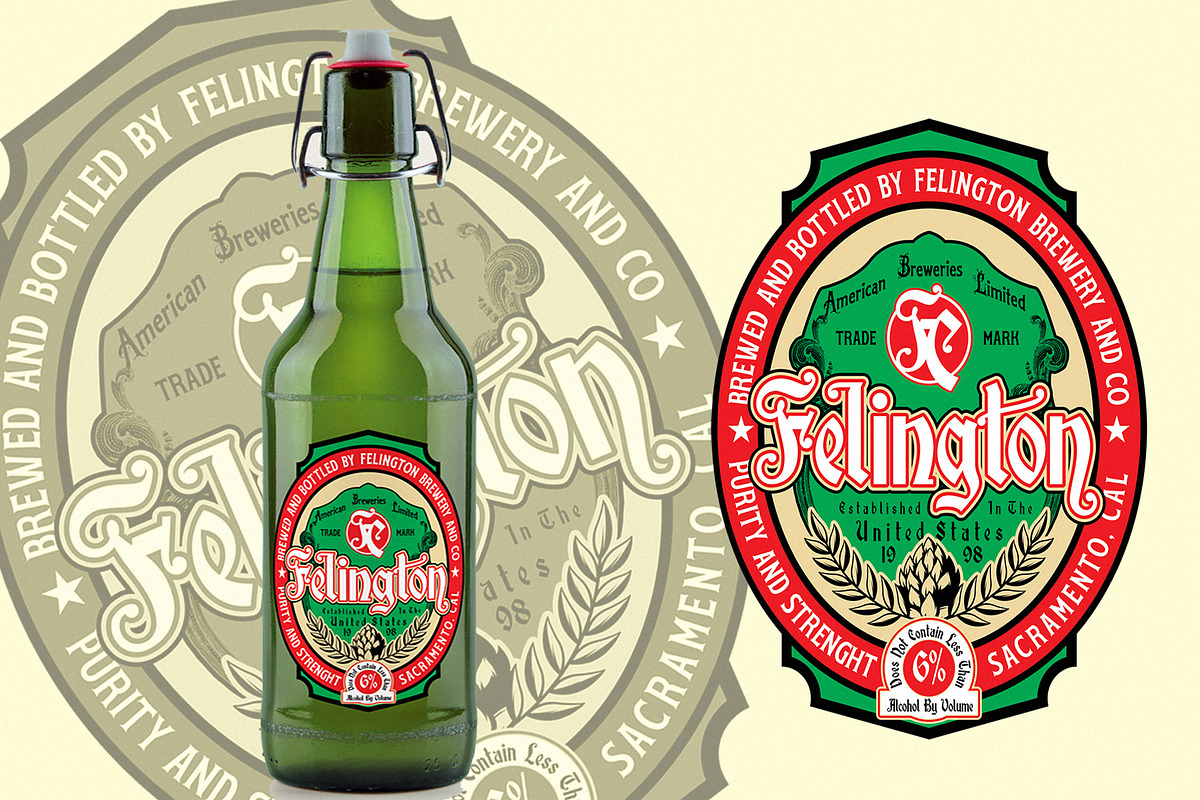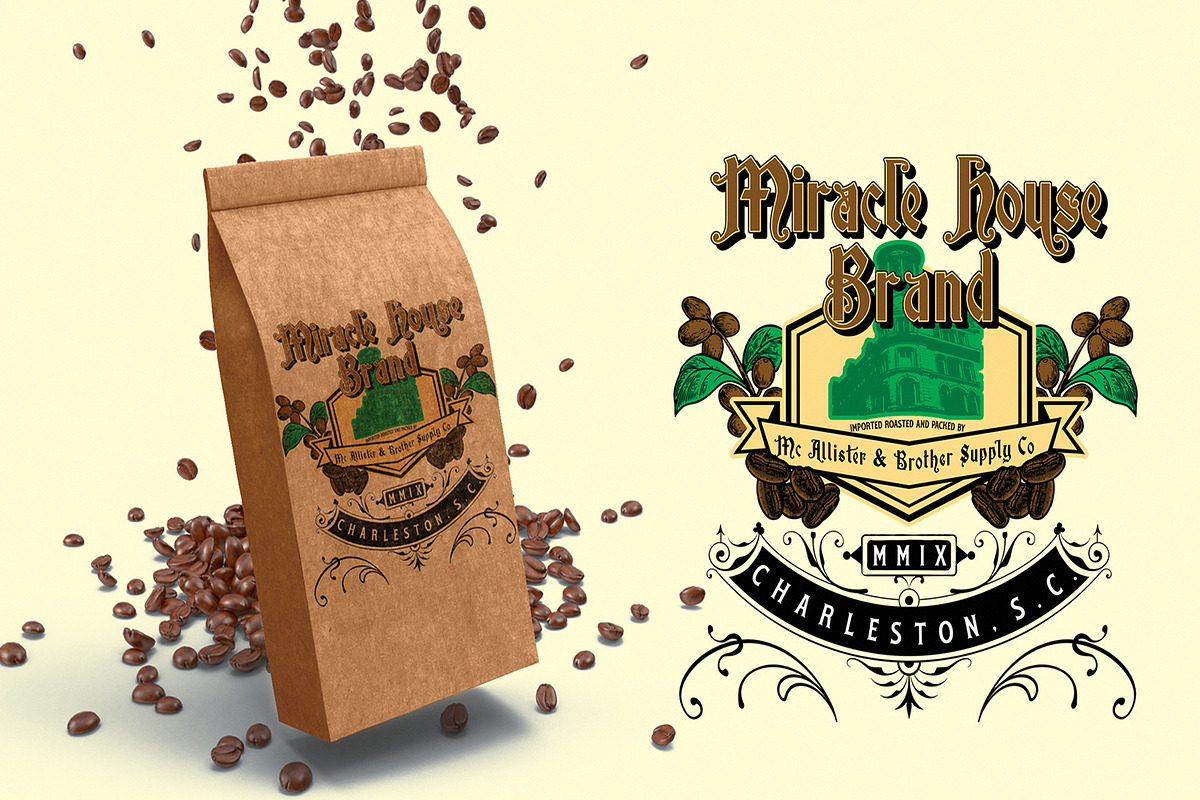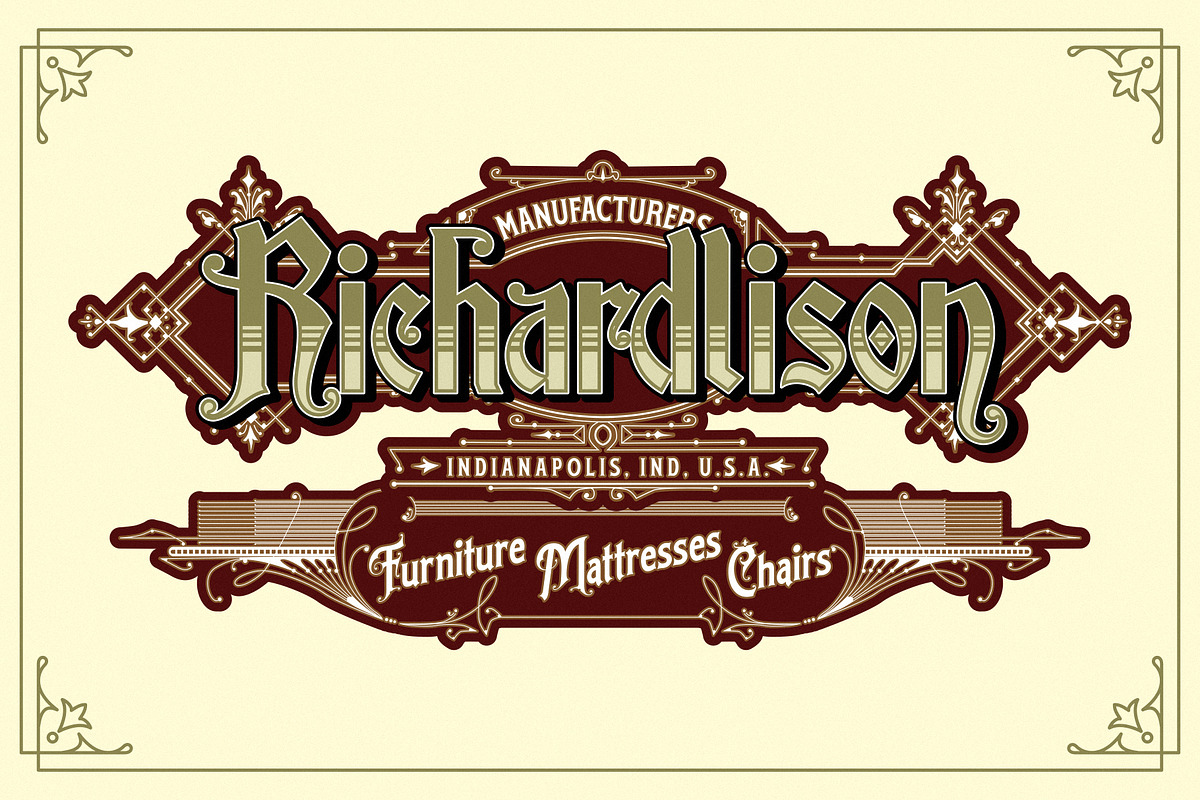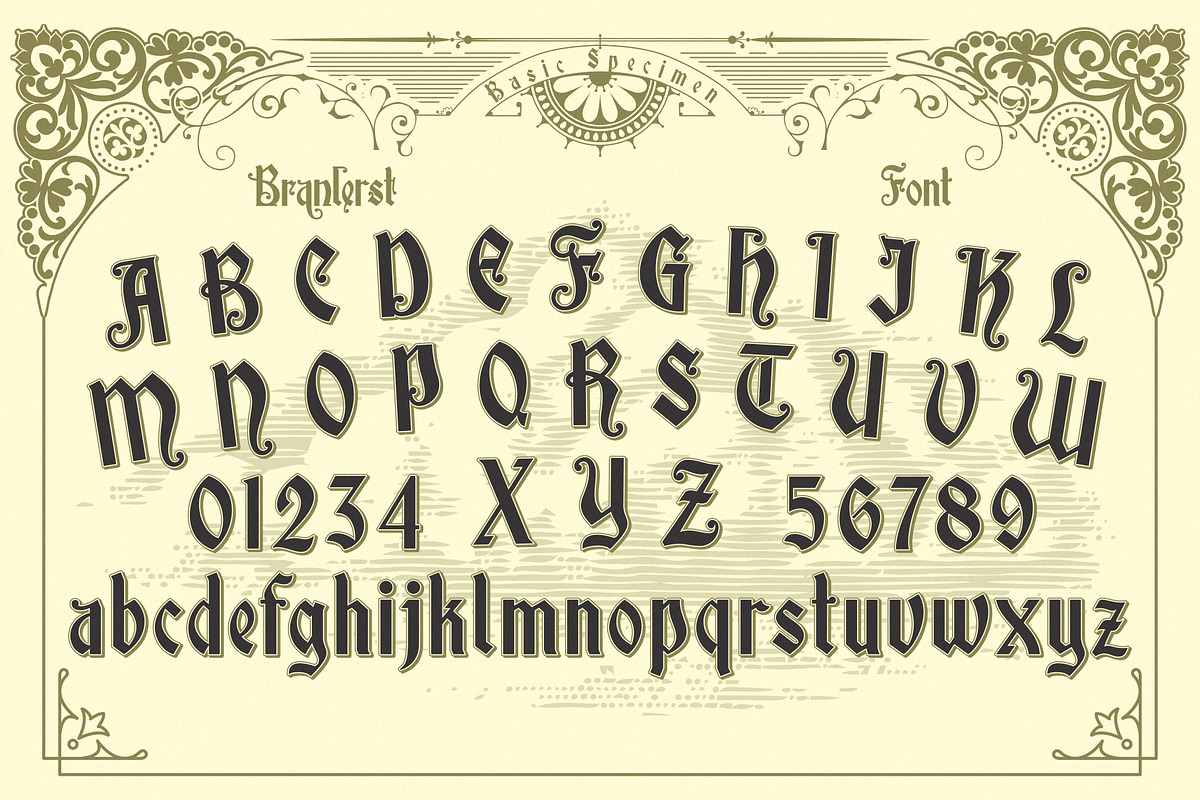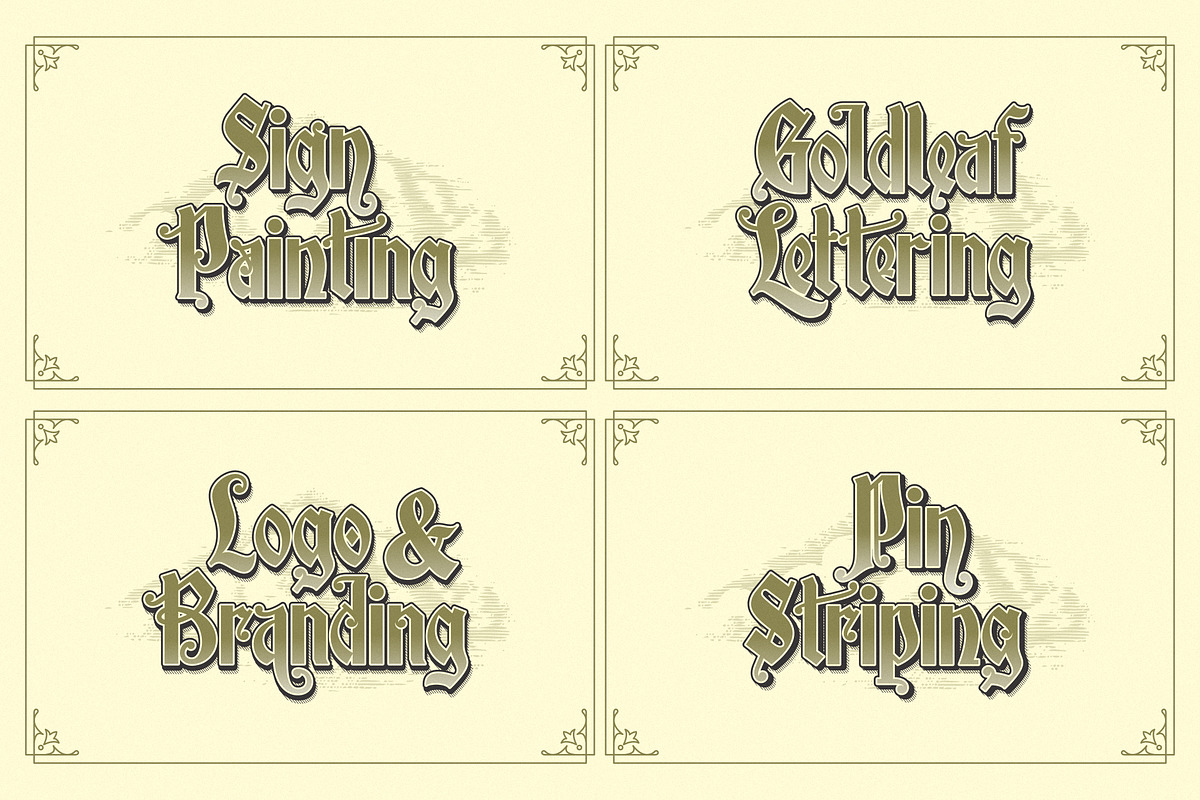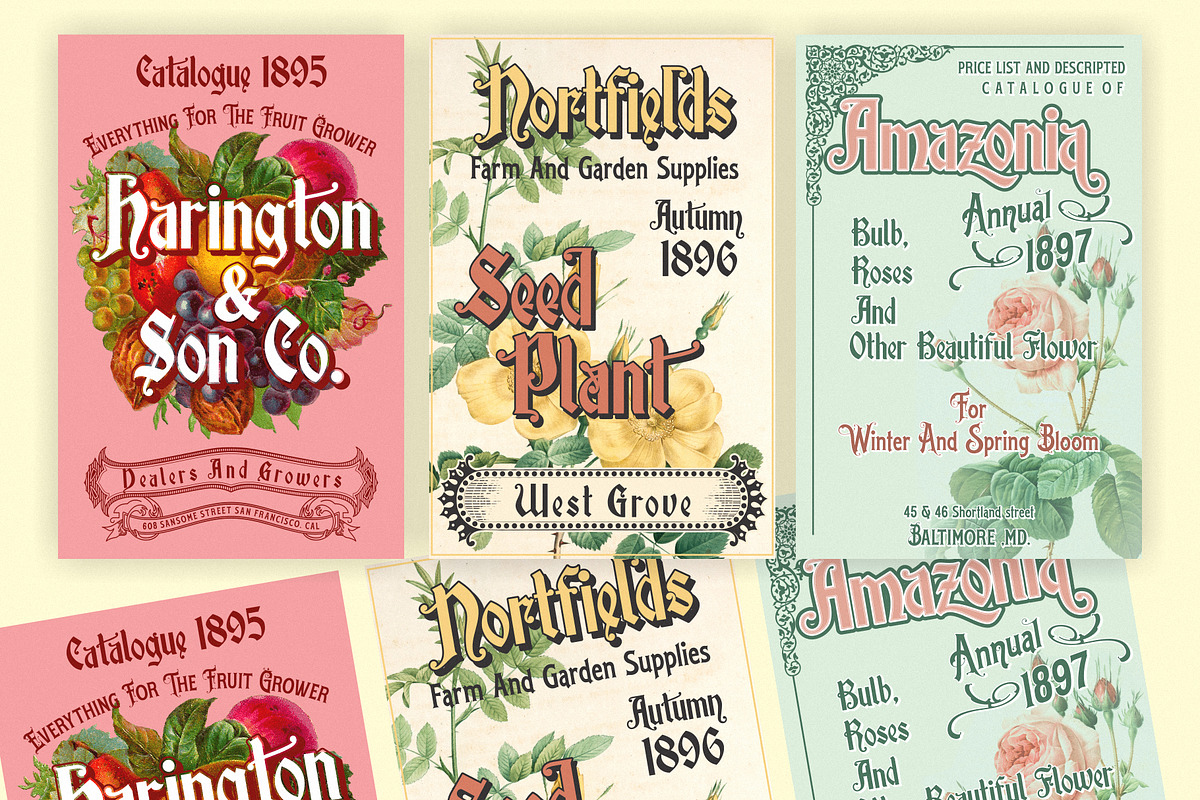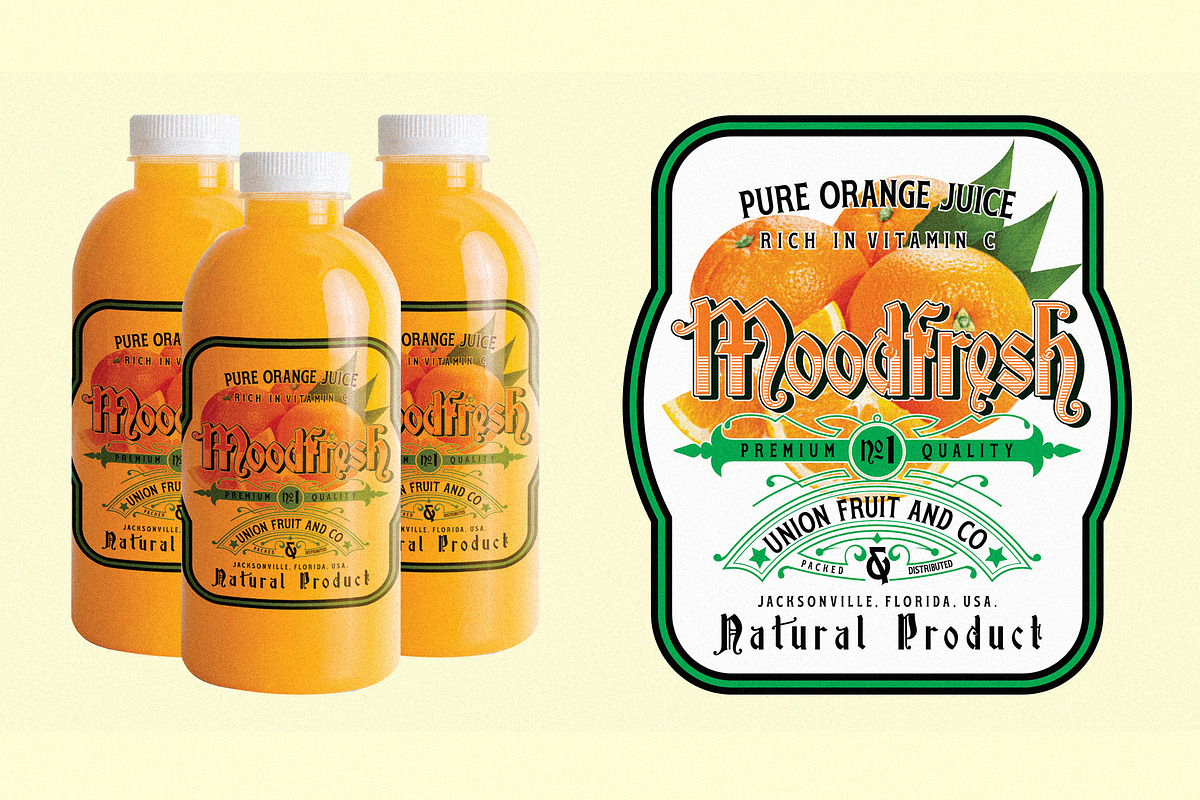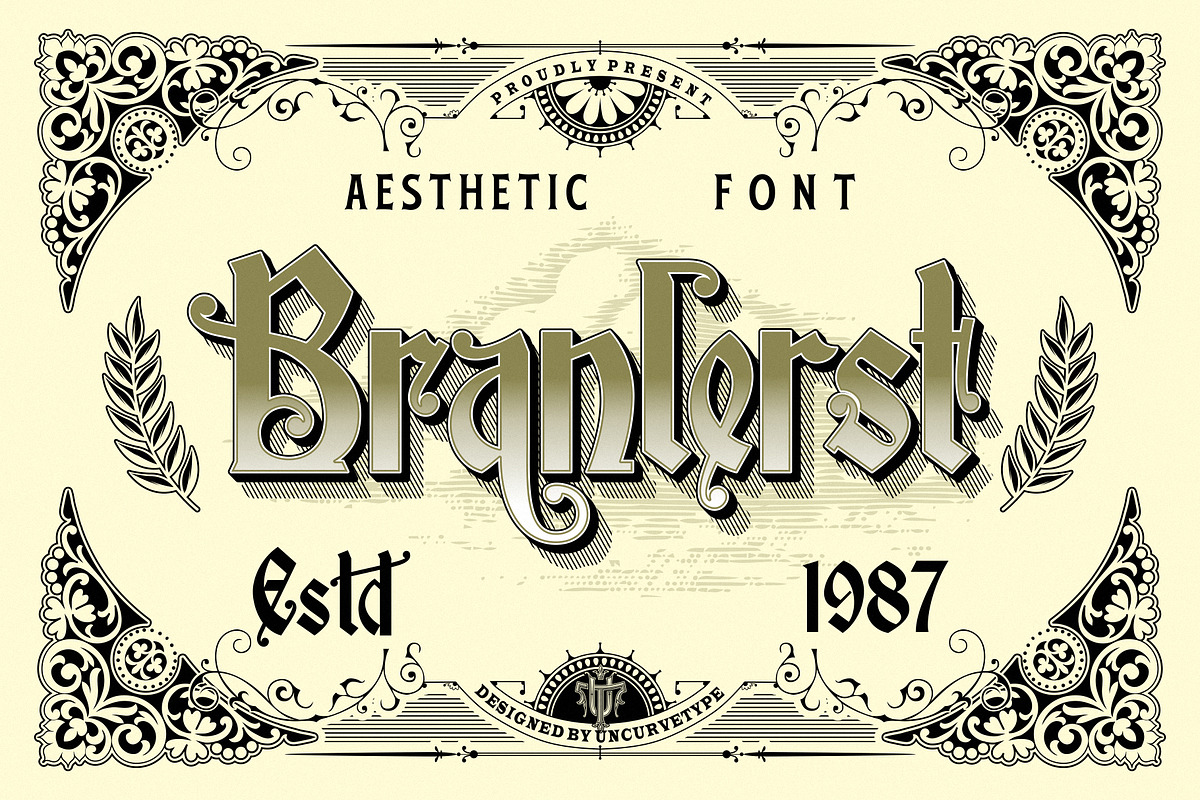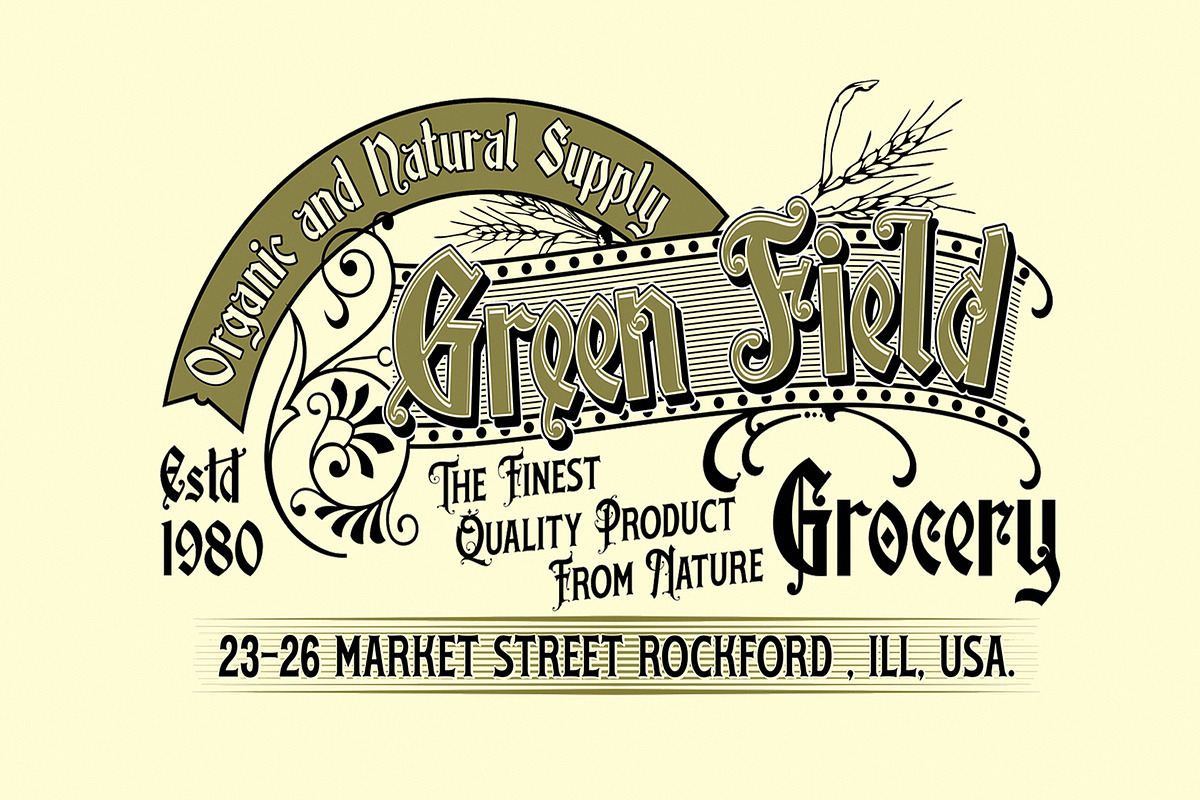
Branlerst
Branlerst is an aesthetic vintage typography font, inspired from the past, elegant signage, gold leaf , sign painting and old label product. Branlerst comes with alternates characters to make more eye cacthy . It is suitable for authentic logos, headings, sign painting, posters, letterhead, branding, magazines, album covers, book covers, movies, apparel design, flyers, greeting cards, product packaging, and more.
You just cobine with the another font like script , serif or san serif font and adding some effect finally BOOM..!! you get a great design for your project.